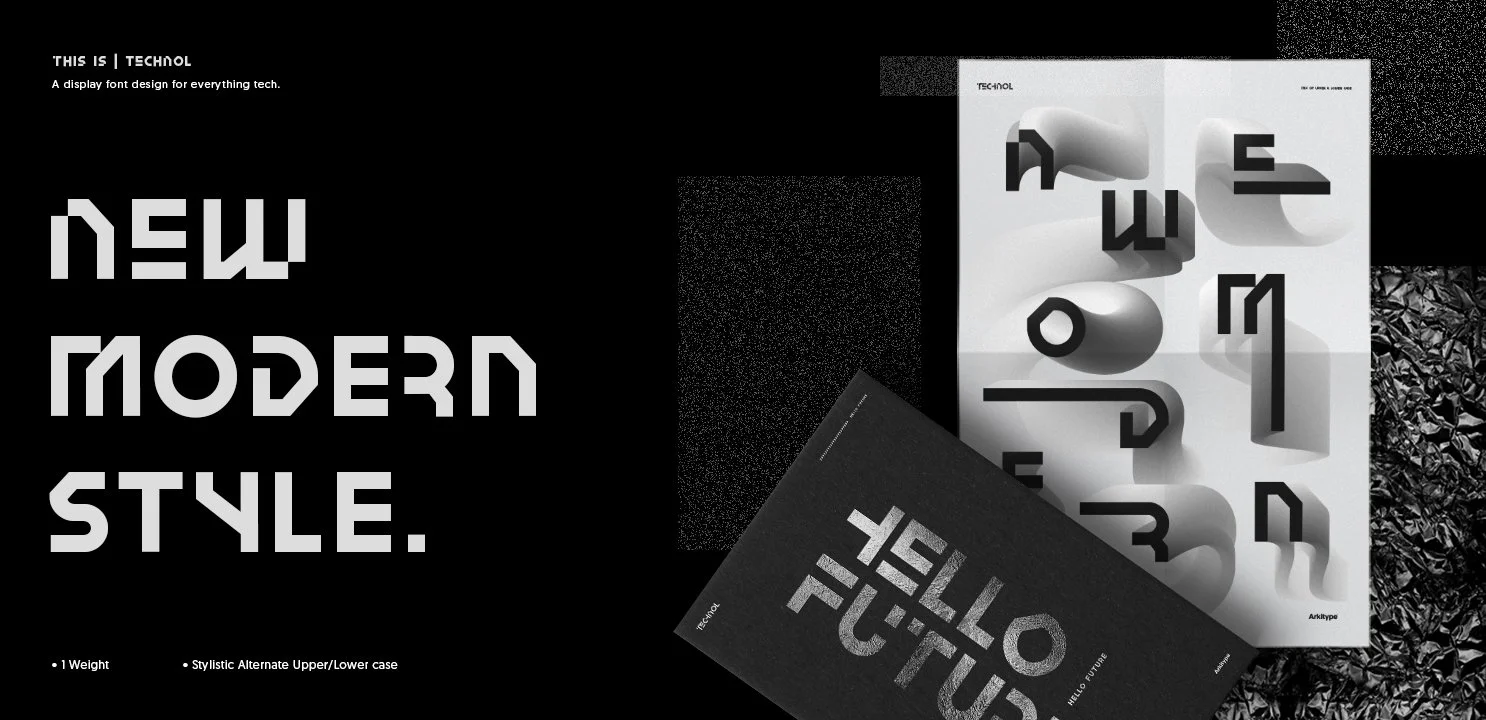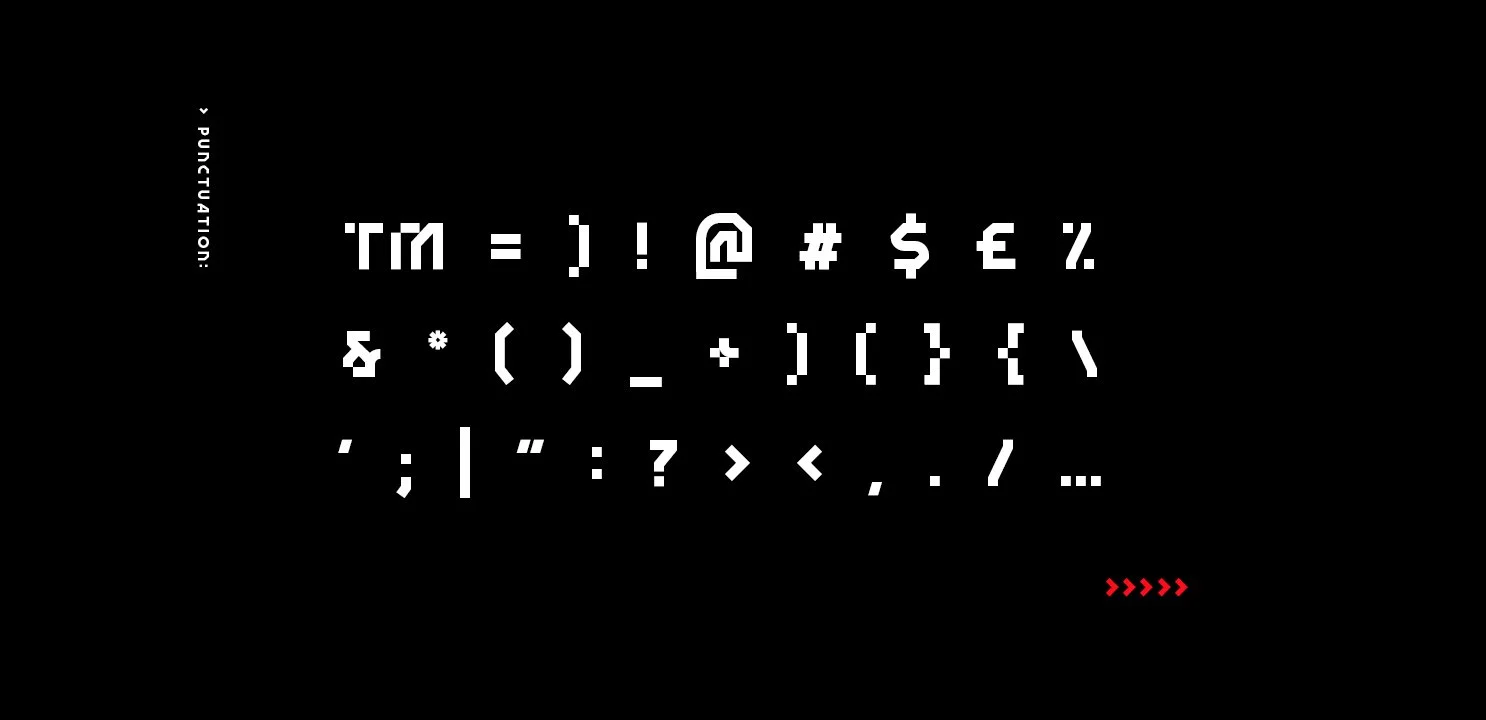
Display advertisement showcasing modern, stylized typography and graphic design elements with the text 'NEW MODERN STYLE.' and additional text about tech and fashion.
Image showing different styles of uppercase and lowercase alphabet letters in a digital or pixelated font on a black background.
Comparison of two text styles, one in black uppercase letters and one in red uppercase letters, with the phrase 'KITTED UP WITH ALL THE NEW GEAR'.
A black background with white pixelated symbols and characters, including punctuation, mathematical symbols, currency signs, and arrows, with a red arrow pointing to the right and text indicating 'Punctuation'.
A black and white poster featuring a large abstract graphic design of a stylized letter 'S', with contact information and the words 'THE NUMBERS' on the left side. The poster is clipped to a gray background with a small set of red arrow icons underne
A graphic with a gray background and red text that says, "Don't let the future leave you behind!" The design includes black and white textured squares in the corners.
A silver metallic pouch with the word 'TECH.XI' written in black on it, placed on a mixed textured background of black and white materials with a design that includes black cross marks and the words 'TECHNOLOGY   FUTURE   DESIGN' at the bottom.